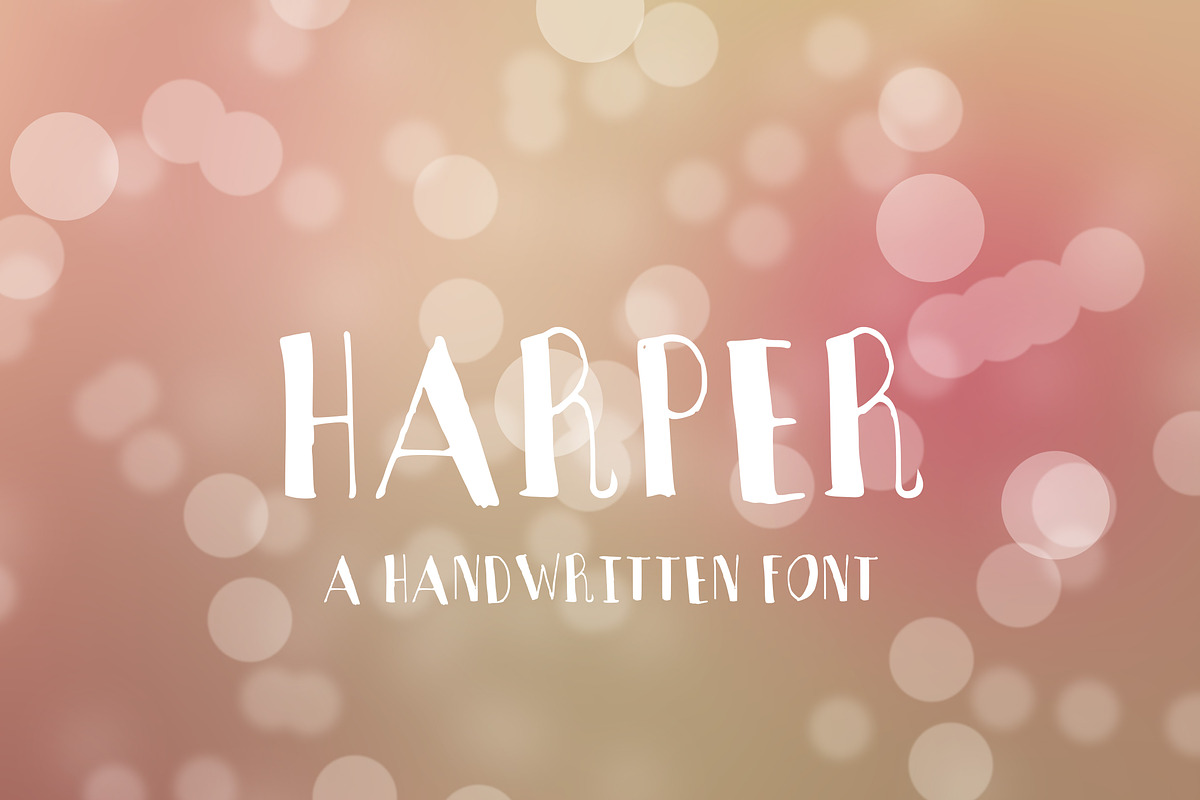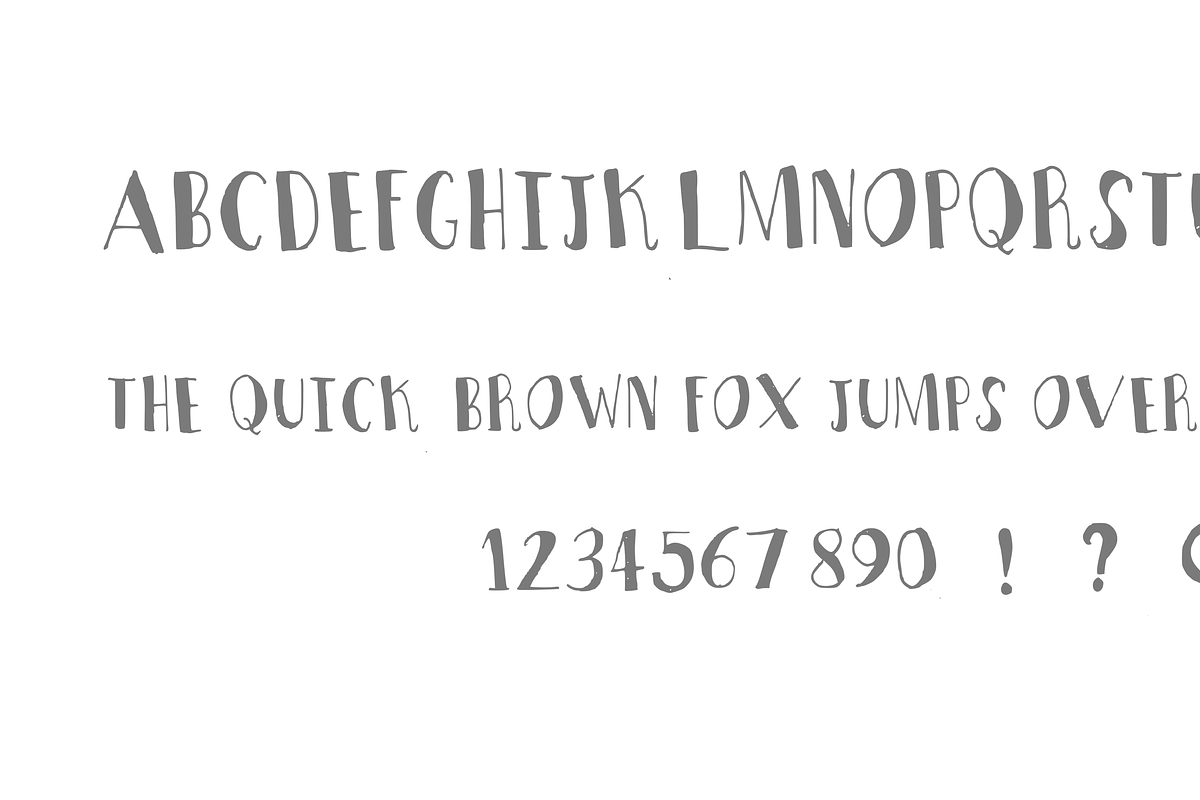
Harper Font
Harper Font by Sweet Little Muse is a font selected for branding, posters, packaging, typography.
Why Harper Font is worth a look
Harper Font by Sweet Little Muse fits naturally into Branding, posters, packaging, typography.